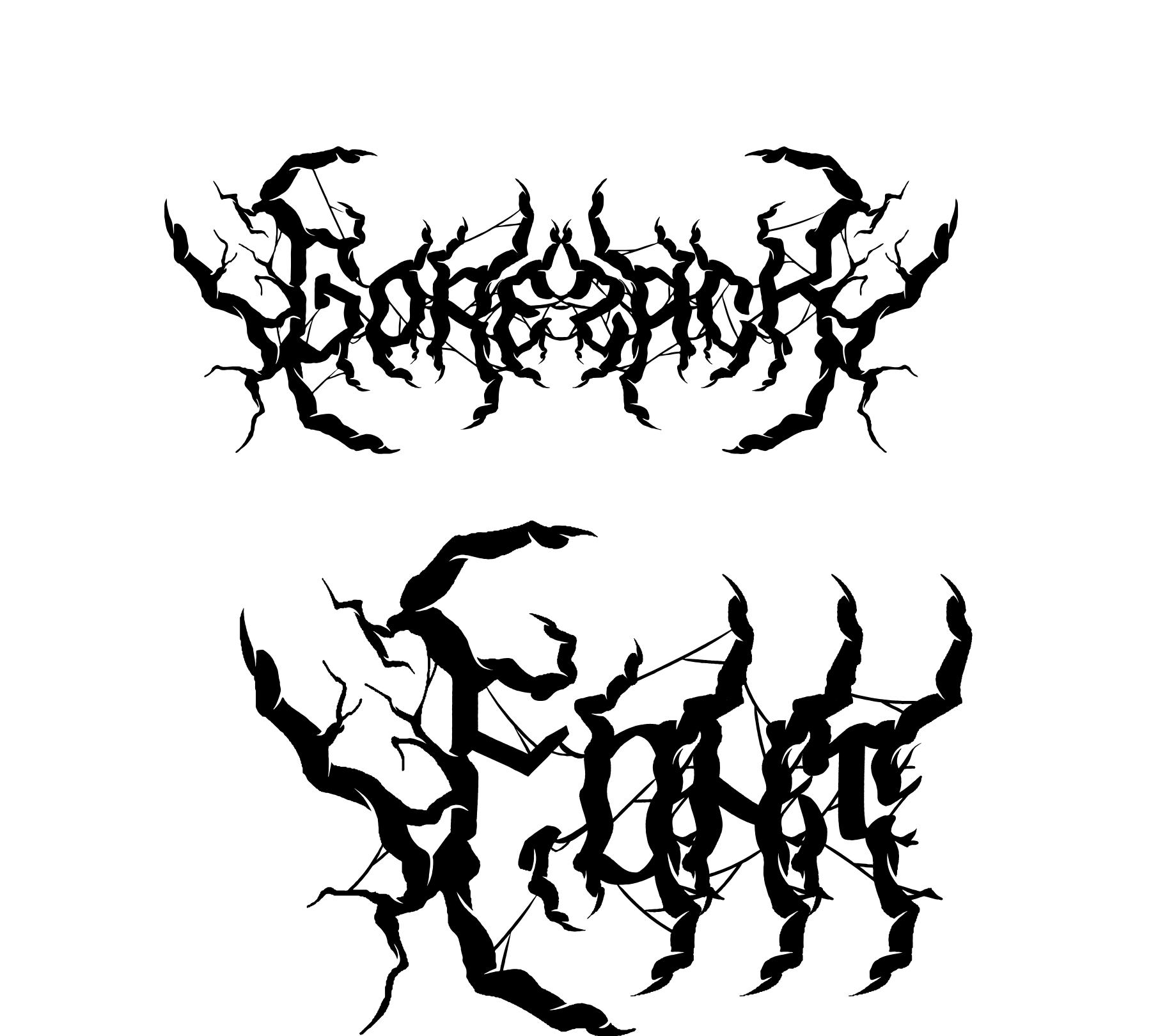
Gorezack
Gorezack is a gothic font (2022). Its pointed, heavy strokes give it a dark, dramatic blackletter look. You can download it for free and test it with your own words in the preview above.
Gorezack has the full alphabet in upper and lowercase. There are no numbers, so you'll need a second font for dates, prices or phone numbers. Punctuation is limited, so look at the character map if you need a specific symbol. There are no accented letters like é or ñ, so it's best kept to English text.
Gorezack is a natural fit for tattoos, metal band logos and dark fantasy titles. Its lowercase letters are tall compared to the capitals, which keeps it readable at smaller sizes. The file has no kerning data, so in logos and big titles check pairs like AV, To and Wa and tighten the spacing by hand. Blackletter is very hard to read in all caps, so type in normal upper and lowercase.
Yes. Gorezack has ligatures that turn on by themselves in most design apps and browsers, so you don't need to do anything special.
No. Gorezack has no accented letters such as é, ñ or ü, so it's best for English text.
No. Gorezack has no numbers, so pair it with another font for dates, prices or phone numbers.